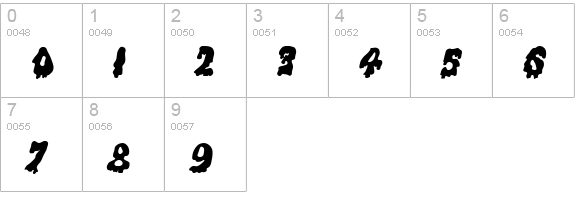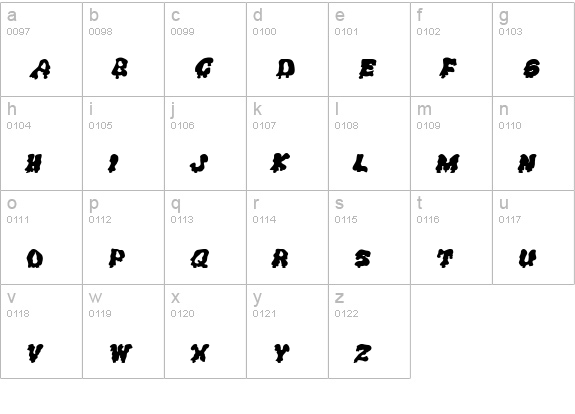
Gremlin Solid Italic Font Details
Gremlin Solid Italic is a distinctive, italic variant in the Gremlin typeface family \xE2\x80\x94 well suited to design and typography projects.
Gremlin Solid Italic font is a unique and stylish typeface that is sure to make your designs stand out. With its slanted and bold appearance, this font exudes a sense of modernity and sophistication. Perfect for adding a touch of flair to any project, Gremlin Solid Italic is versatile and eye-catching. And the best part? This fantastic font is available for free download at FontsMarket.com. Whether you're working on a website, poster, logo, or any other design project, Gremlin Solid Italic is a great choice to add some personality and style. Don't miss out on this opportunity to enhance your work with this amazing font!